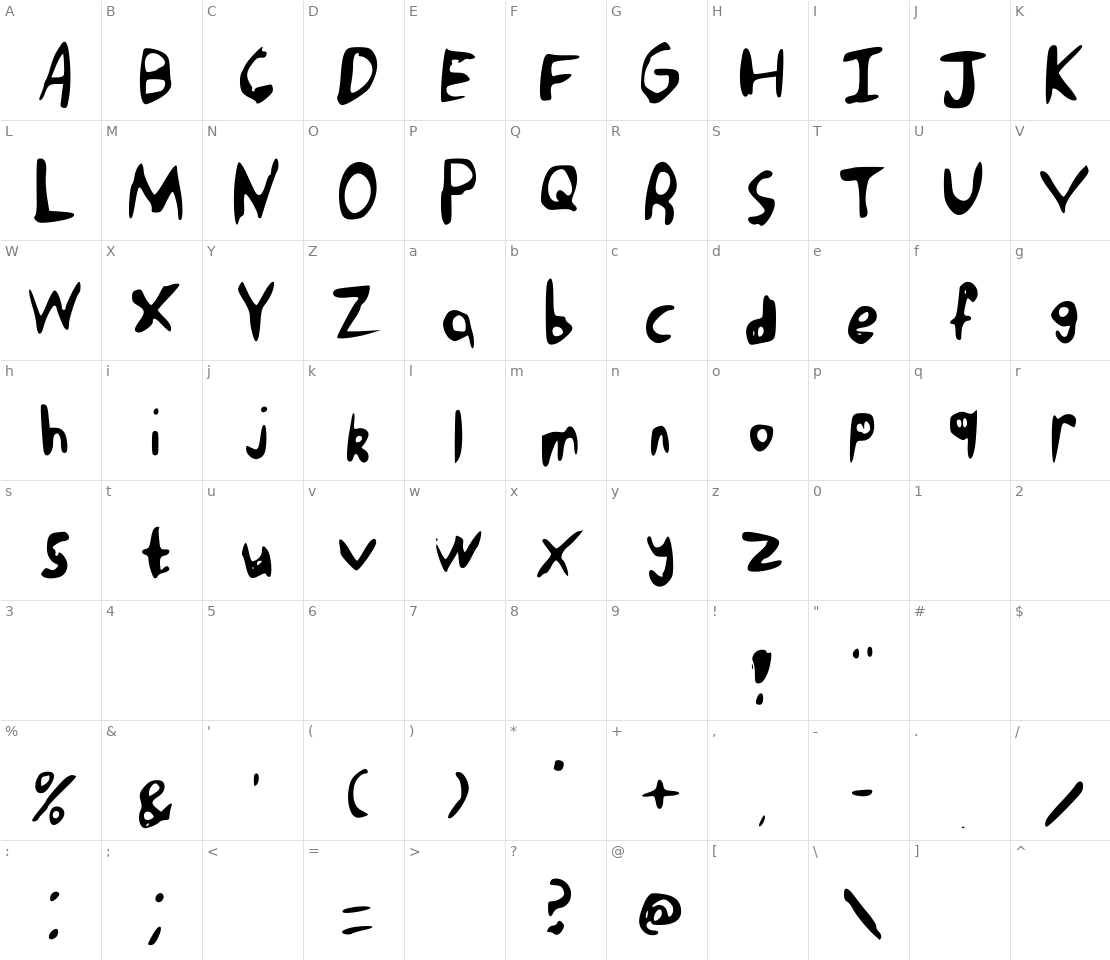
Punk Rock Handwriting
by kizzles the cat
Punk Rock Handwriting from kizzles the cat is exactly what it sounds like: a rough, heavy handwritten face with the kind of jagged, uneven letterforms you'd find Sharpied onto a gig flyer or scratched into a bathroom stall. The strokes are bold and deliberately messy, with enough irregularity to feel authentically chaotic rather than designed. Best kept to headlines, posters, and short blasts of text where raw, punk energy matters more than legibility.